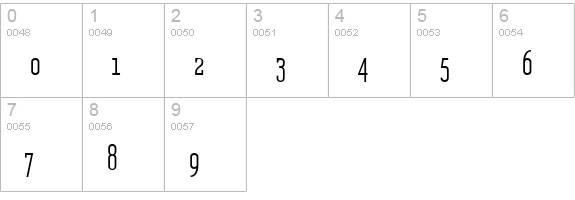
Unknown Caller BTN SC Bold is a strong, high-contrast variant in the Unknown typeface family \xE2\x80\x94 well suited to headlines, attention-grabbing titles, and strong calls-to-action.
Unknown Caller BTN SC Bold font is a bold and eye-catching typeface that exudes a sense of confidence and modernity. Its strong and distinctive letterforms make it the perfect choice for headlines, titles, and attention-grabbing designs. The bold weight of this font adds impact and prominence to any text, ensuring that your message is noticed and remembered. What sets Unknown Caller BTN SC Bold font apart is its versatility. It is suitable for a wide range of design projects, from logos and branding materials to posters, banners, and website headers. This font effortlessly combines legibility with a unique and contemporary aesthetic, making it a popular choice among designers and typographers. One of the most appealing aspects of Unknown Caller BTN SC Bold font is that it is freely available to download at FontsMarket.com. This means that you can easily access and use this font without any cost, allowing you to enhance your designs without breaking the bank. Whether you are a professional designer or a casual enthusiast, having access to high-quality fonts like Unknown Caller BTN SC Bold font can greatly enhance the visual impact of your projects. Overall, Unknown Caller BTN SC Bold font is a powerful and versatile typeface that offers a bold and modern look. Its strong letterforms and free availability make it a valuable asset for any designer or creative individual. Download Unknown Caller BTN SC Bold font today from FontsMarket.com and elevate your designs to new heights.